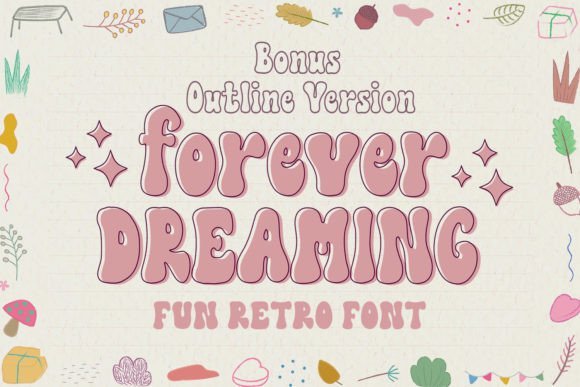
Introduction to Forever Dreaming Font
Forever Dreaming is a cute retro display font.
It’s a groovy style font perfect for branding, posters, t-shirts, stickers, wall art, and any design you can think of .